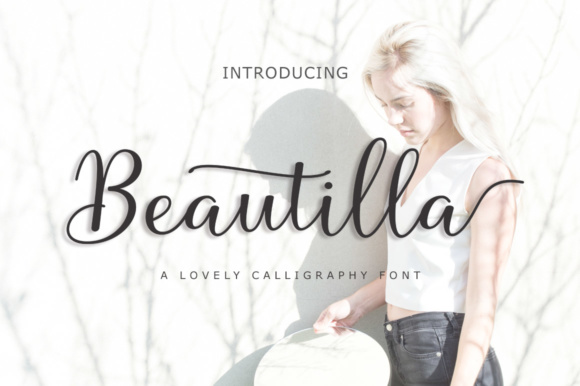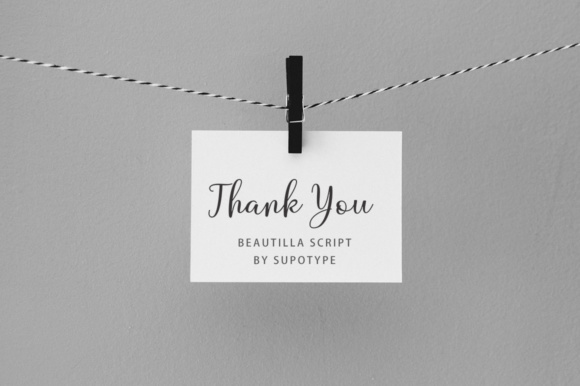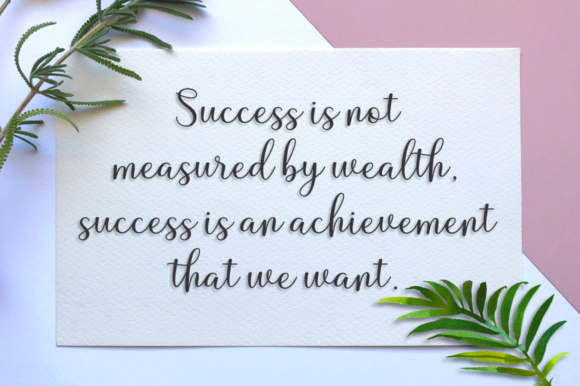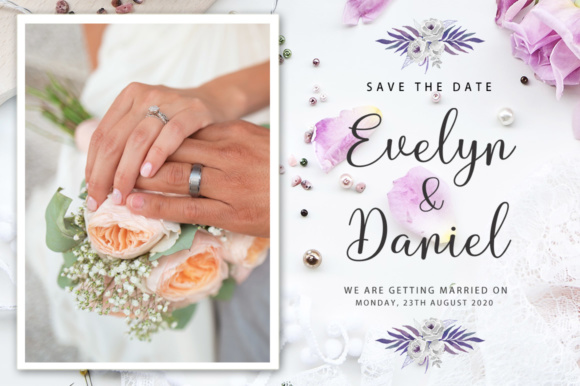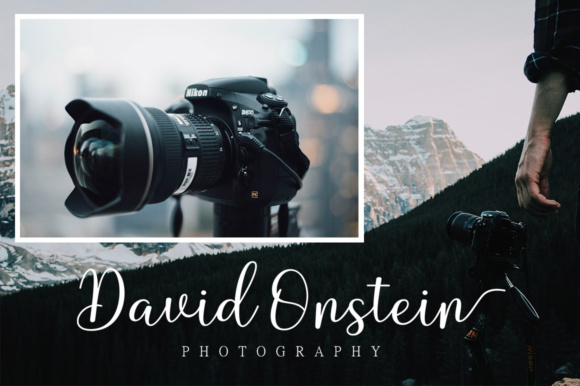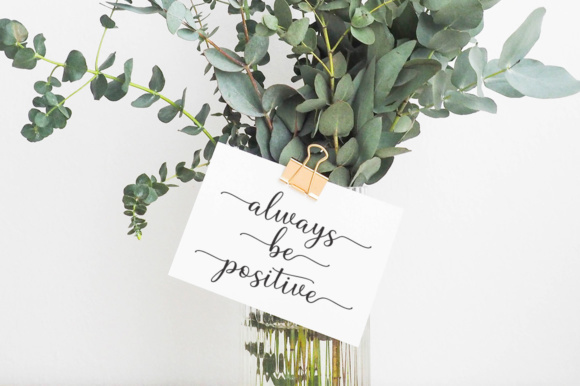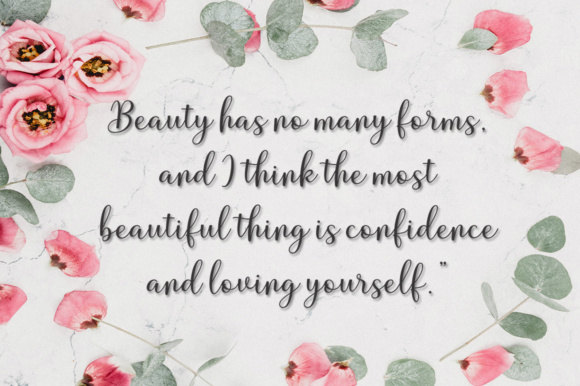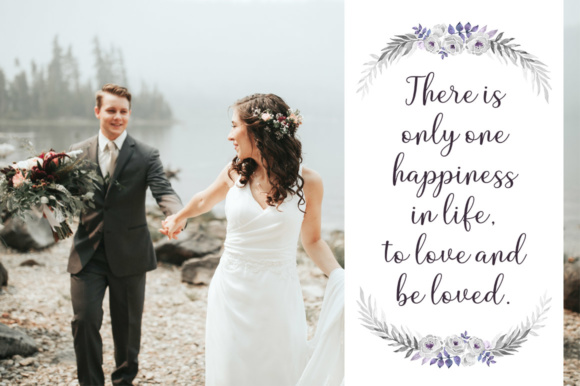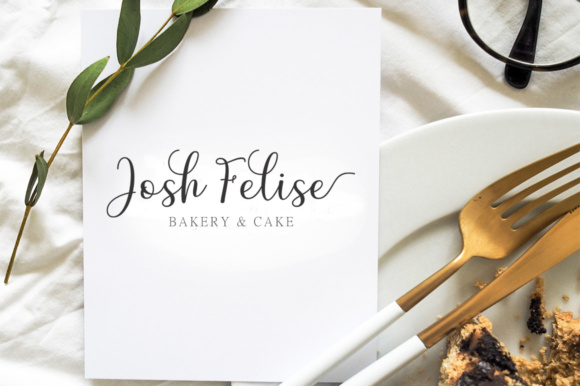
Beautilla Script Font
About Beautilla Script Font
Beautilla is a sweet calligraphy font with a casual and dynamic look. It has a dancing baseline which will give your design a casual yet elegant feel. Perfect for branding, logos, greeting cards, weddings and more!